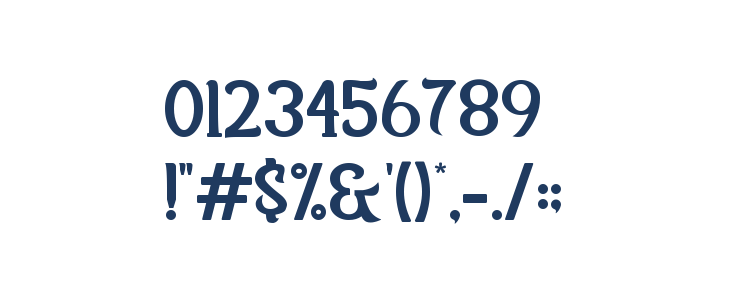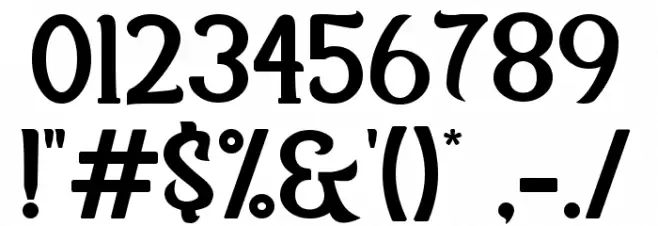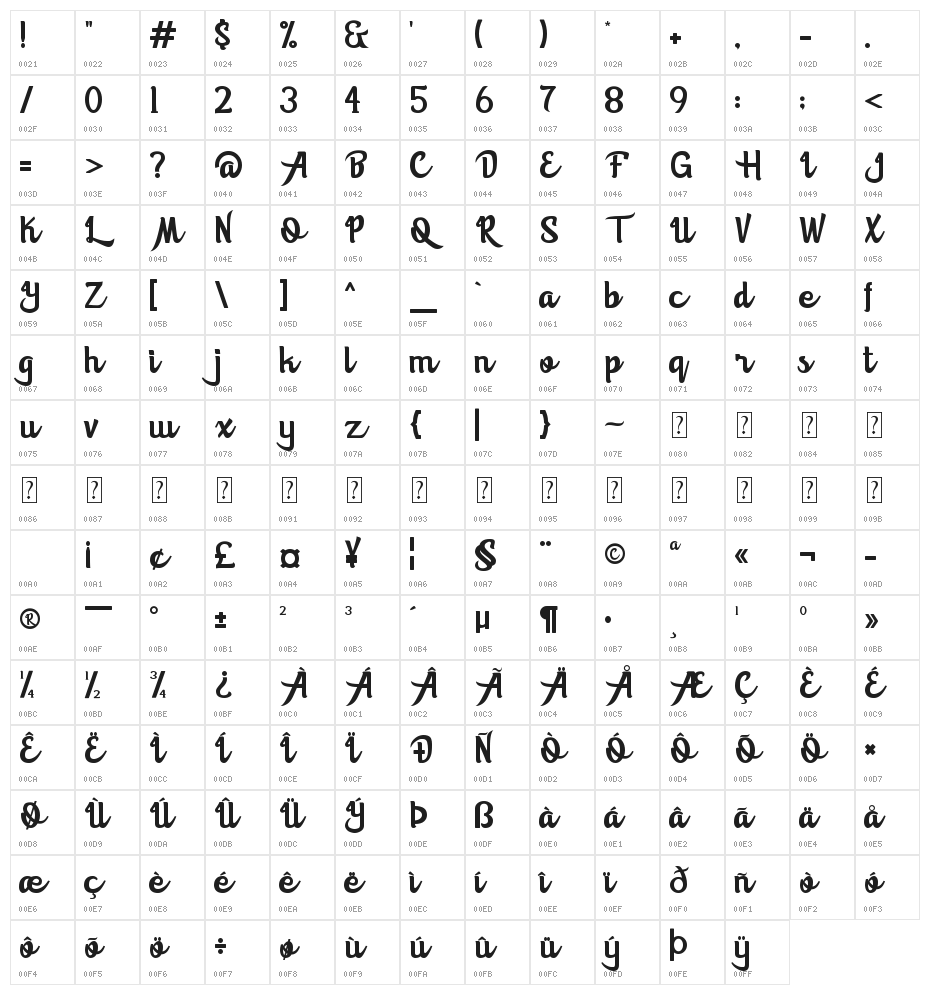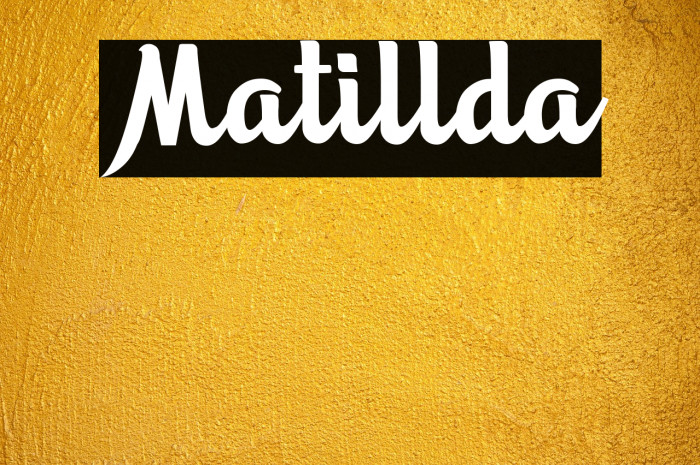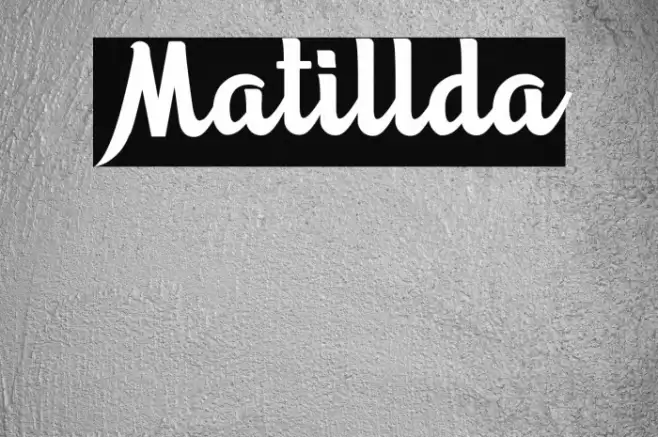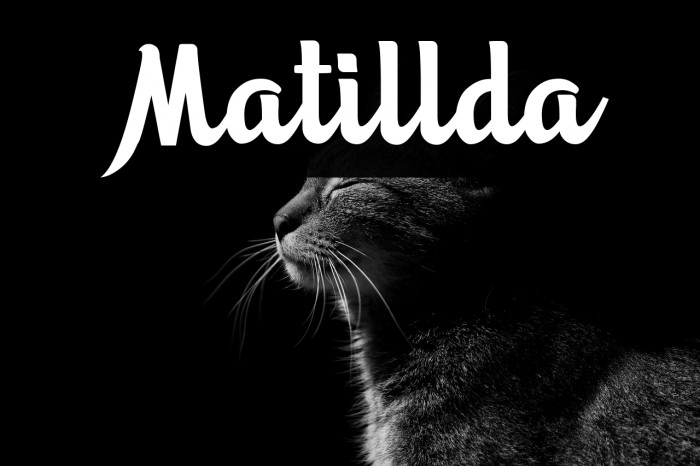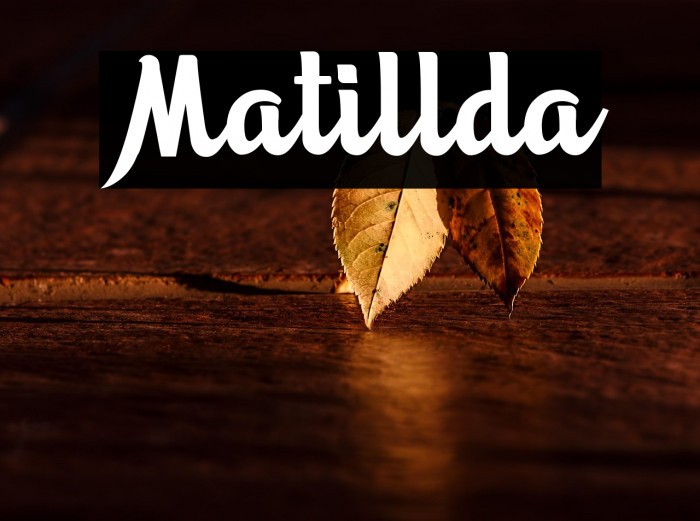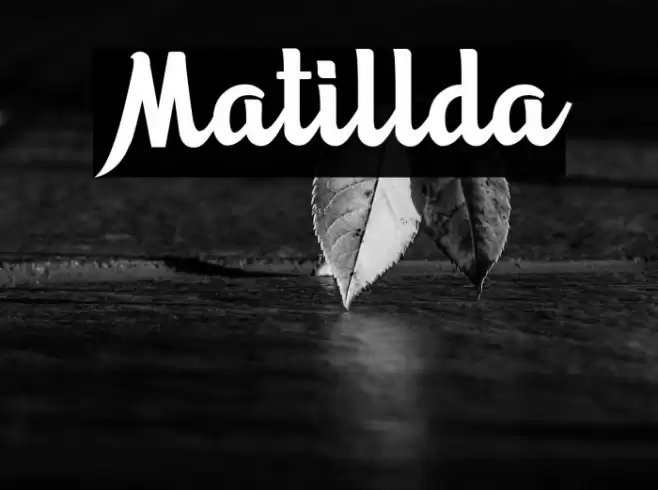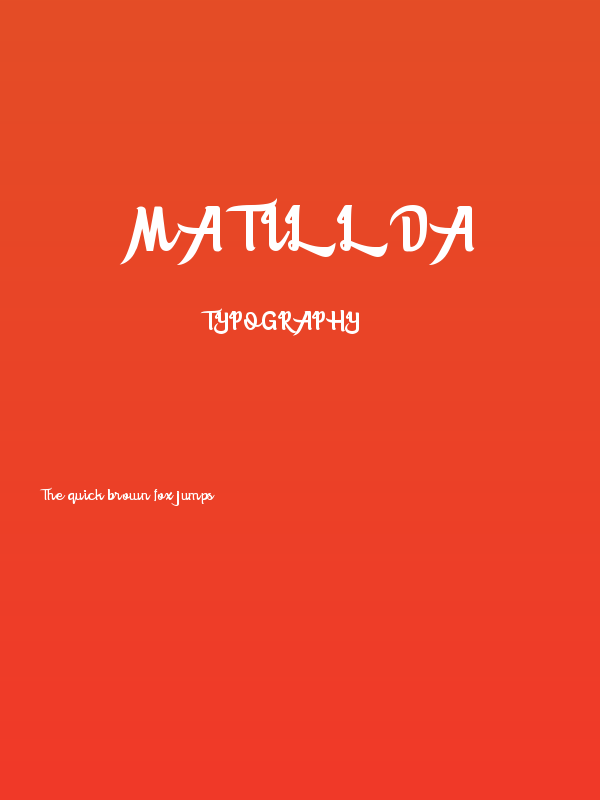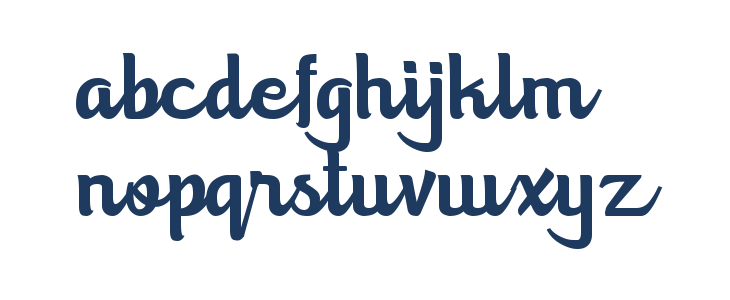
Matillda Font
Matillda Description
This font features a bold and expressive script style with a playful yet elegant appearance. The uppercase letters are characterized by sweeping curves and dynamic strokes, giving them a sense of movement and flair. The lowercase letters maintain a consistent flow, complementing the uppercase with their rounded forms and smooth connections. Numbers and special characters are crafted with the same attention to detail, ensuring a cohesive look across all elements. The font's overall design is both decorative and functional, making it suitable for a variety of creative applications.